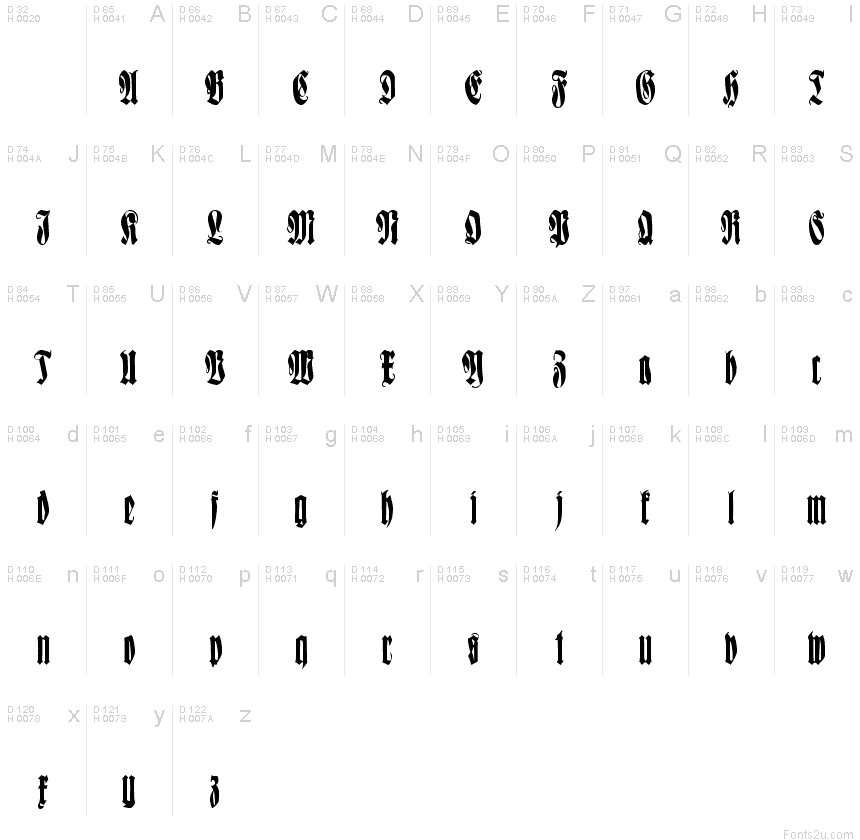
Wittenbach from Scriptorium Fonts is a free blackletter font with a severe medieval profile. Its tall, compressed letters combine broad dark strokes with sharp peaks and deep white cuts. The repeated notches and split forms give the lettering a carved, almost heraldic quality.
Packaging is its strongest medium, especially for beer labels and metal merchandise. Fantasy games and historical event posters share the same appetite for dense gothic lettering that can act as a badge or emblem rather than neutral text.